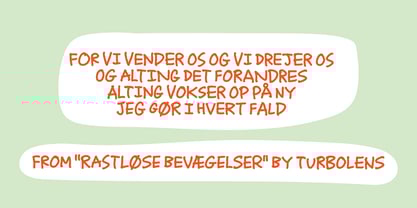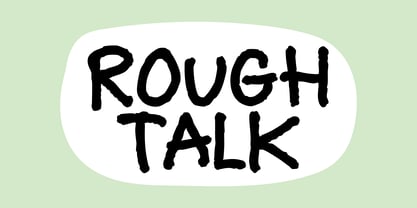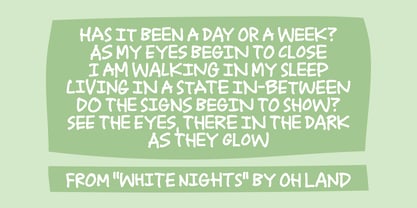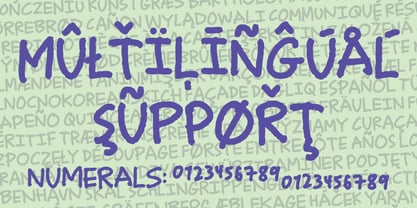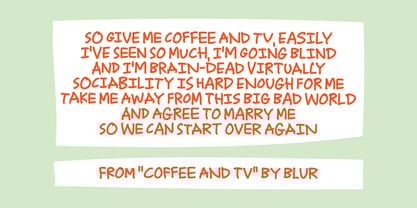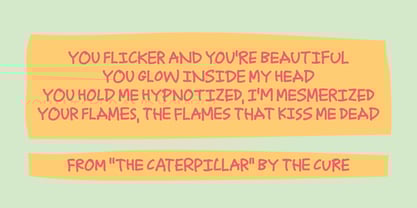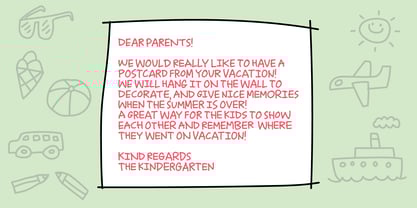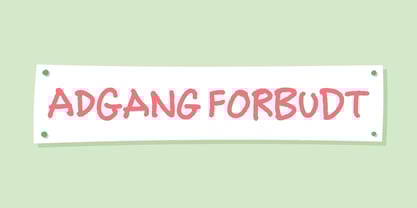
Adgang Forbudt
by Bogstav
The Adgang Forbudt Font Family was designed by Jakob Fischer and published by Bogstav. Adgang Forbudt contains 2 styles and family package options.
We have a park nearby, where I usually walk the dog. Since there has been planted new bushes and trees, nature needs some time to strengthen. Therefore there was a sign saying “No entrance” - but people (and dogs!) didn’t seem to understand, so the newly plants was tramped to the ground. A few days after, several (like in 50!) signs saying “NO ENTRANCE” was put up. They were handwritten, and this time it worked! No dogs or people did enter! Oh, by the way … “Adgang Forbudt” means “No entrance” in danish :)
Designers: Jakob Fischer
Publisher: Bogstav
Foundry: Bogstav